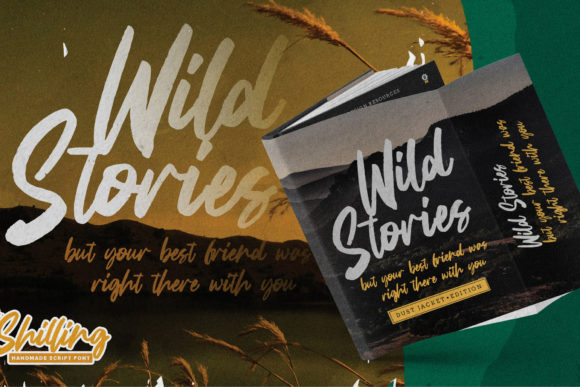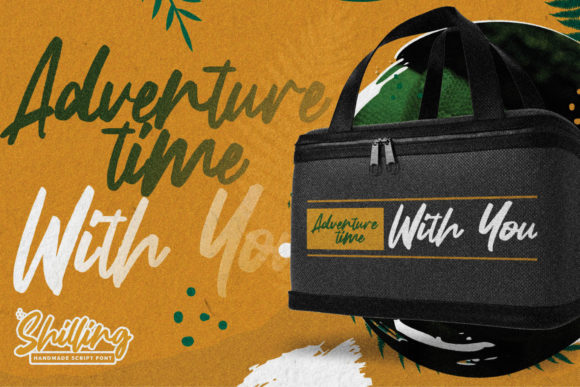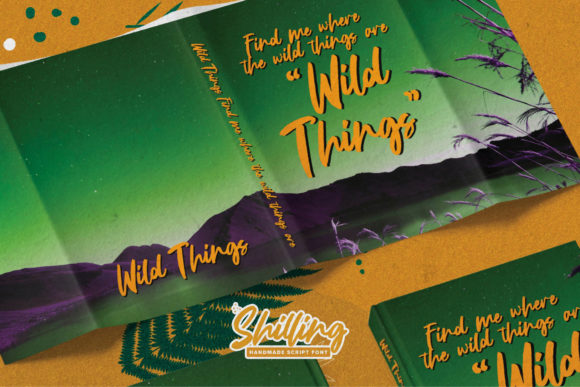
Introduction to Shilling Font
As you sit in front of your computer, staring blankly at a blank canvas, the excitement of a new creative project begins to build. You start to envision the perfect typography, the perfect font that will bring your vision to life. And then, it hits you – the perfect font, with its relaxed and paint-brushed handwritten style, perfectly capturing the essence of your creative vision. Welcome to the world of Shilling Font, a true gem in the realm of design resources.
The Shilling Font is more than just a font – it’s a statement piece that exudes elegance and sophistication. Its classy calligraphic influences, combined with its contemporary feel, make it a high-quality design resource that is sure to elevate any project. Whether you’re working on a free download or a commercial project, the Shilling Font is the perfect addition to your design arsenal.
Key Features of Shilling Font
- High-quality design: Shilling Font offers a unique and elegant style, perfect for creative projects that require a touch of sophistication.
- Transparent background: The font’s transparent background allows for easy integration with various design elements and backgrounds.
- High-resolution design: The font is designed at a high resolution of 300 DPI, making it ideal for print and digital applications.
- Legible and readable: The font’s clear and legible design ensures that it remains easy to read, even at small font sizes.
- Perfect for various design projects: Shilling Font is suitable for a wide range of creative projects, including logos, typography, and branding materials.
Honest Review: Shilling Font
I recently had the opportunity to try out the Shilling Font, and I must say it’s a great addition to any designer’s toolkit. This free download is perfect for those looking for a high-quality design resource to enhance their creative project.
One of the standout features of the Shilling Font is its versatile style, making it suitable for a wide range of design applications. I particularly appreciated its modern and sleek aesthetic, which added a touch of sophistication to my latest design project.
Here are some of the things that work well with the Shilling Font:
- ✨ High-quality design that’s perfect for professional projects
- ✨ Versatile style that works well for various design applications
- ⚠️ The font may not be suitable for projects that require a transparent background, as it doesn’t support this feature.
- ⚠️ Some users may find the font’s modern style too trendy for their taste.
Overall, I’m impressed with the Shilling Font and would recommend it to designers looking for a high-quality design resource. With its sleek aesthetic and versatility, it’s a great addition to any design toolkit.
The Shilling Font is a high-quality design resource that can add a unique touch to your creative project. This versatile font is available for free download and can be used in various applications, including graphic design and digital art.
Tips for Getting the Most Out of Shilling Font
To get the most out of the Shilling Font, consider the following tips:
1. Use the font with a transparent background to create a unique and eye-catching design.
2. Experiment with different font sizes and styles to add visual interest to your design.
Common Use Cases for Shilling Font
The Shilling Font is commonly used in various creative projects, including:
1. Graphic design and digital art.
2. Branding and marketing materials.
Q: Is the Shilling Font available for free download?
Yes, the Shilling Font is available as a free download, making it an excellent addition to your design library. You can download the font from our website and use it in your high-quality design projects.
Q: Can I use the Shilling Font on a transparent background?
Yes, the Shilling Font is designed to be versatile and can be used on a transparent background. The font’s transparent background feature allows for seamless integration with your design elements, making it a valuable design resource for creative projects.